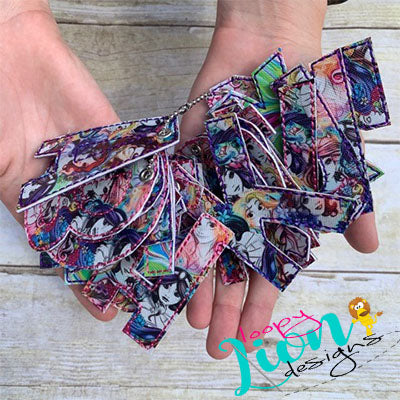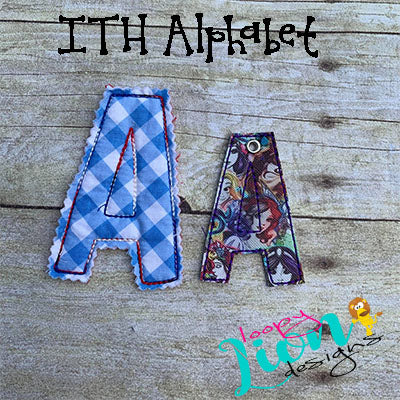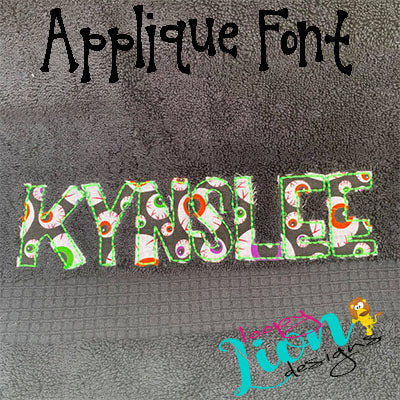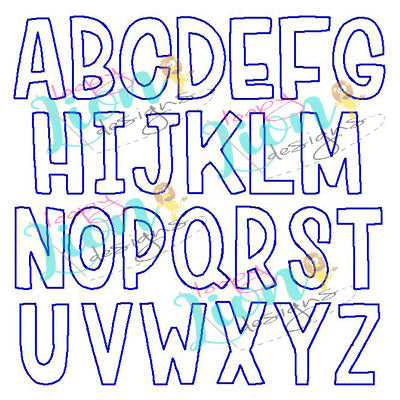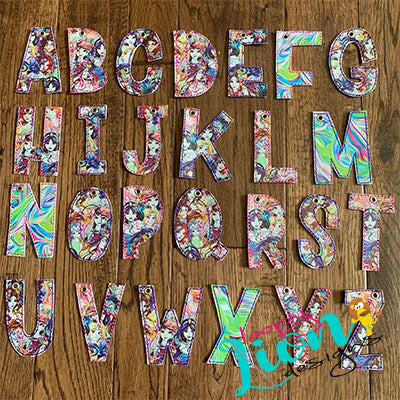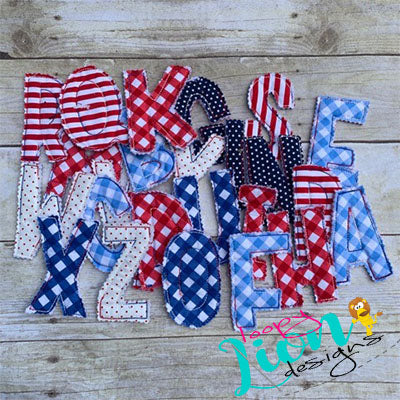
ITH Lumberjack Applique Letters Alphabet Font
✨ ITH Lumberjack Letters Embroidery Designs – Perfect for Little Learners! ✨
Turn everyday playtime into a magical learning adventure! Our soft, handmade embroidered letter designs are ideal for babies and toddlers just starting to spell and explore their ABCs.
Each letter is carefully stitched with love, making them safe, snuggly, and perfect for tiny hands.
Pro Tip: Add a layer of crinkle paper inside before finishing – watch your little one giggle as they make delightful crinkly noises while learning!
Whether you’re making quiet books, sensory toys, pillows, or mobile hangings, these ITH (In-The-Hoop) designs stitch up quickly and beautifully on your embroidery machine.